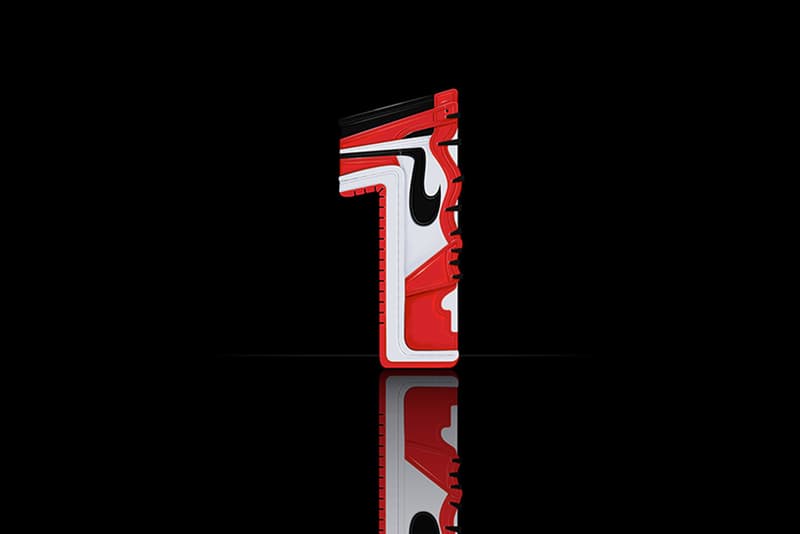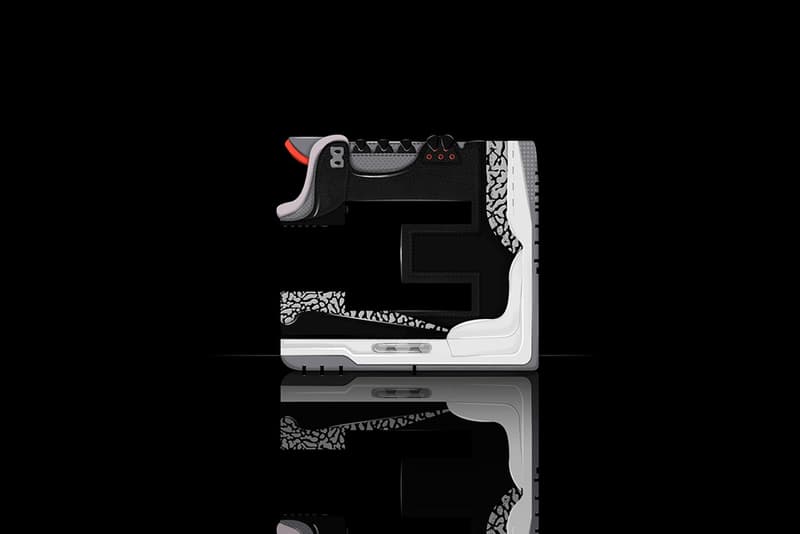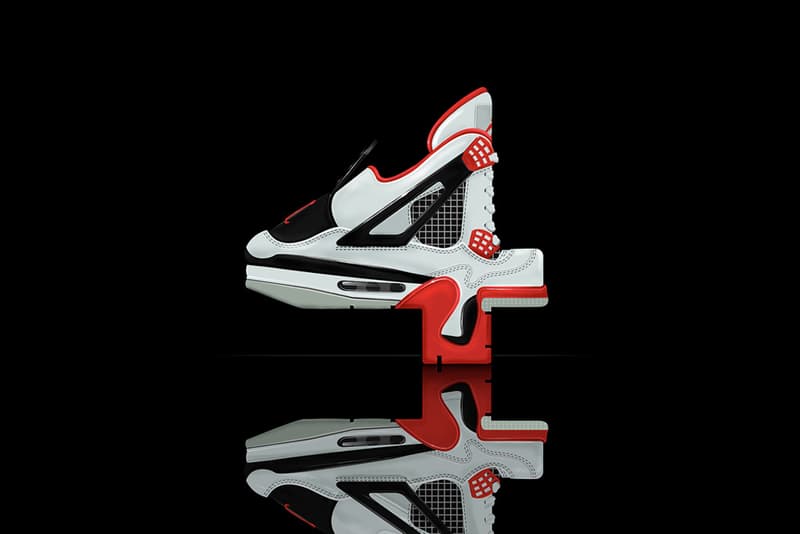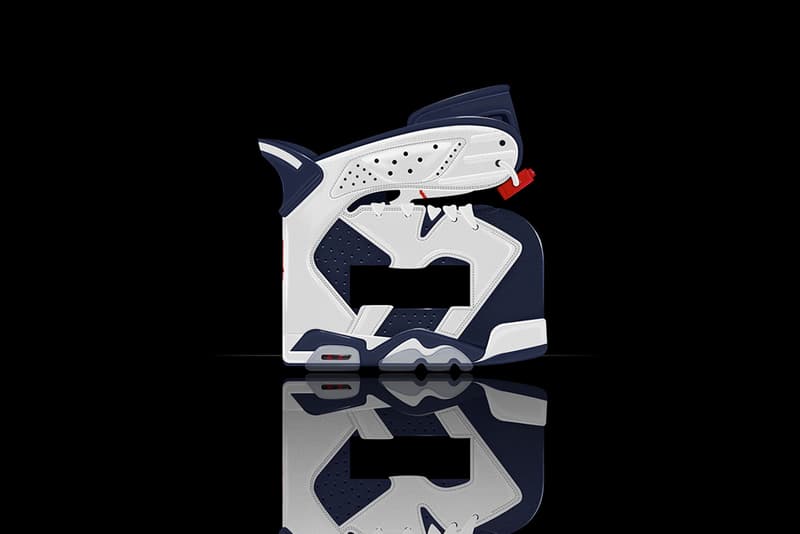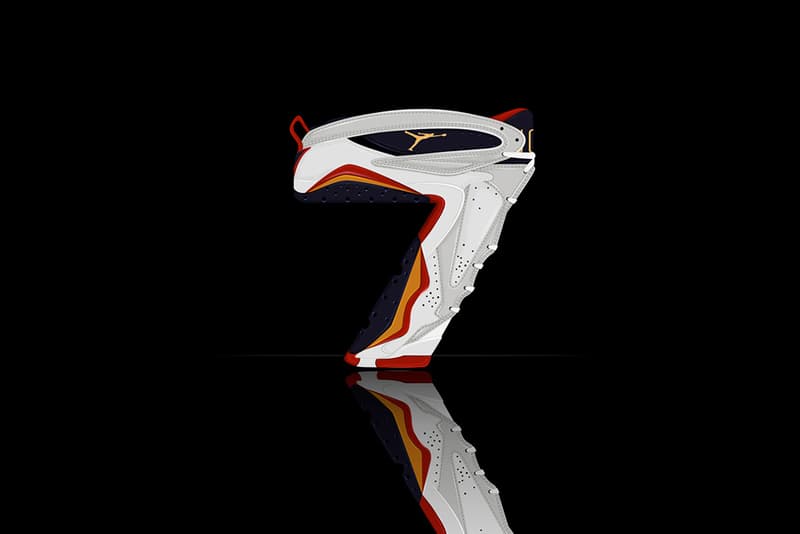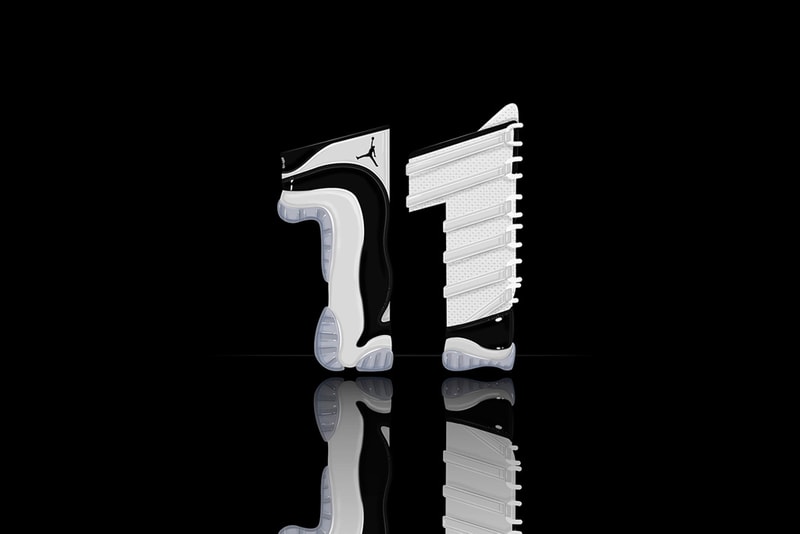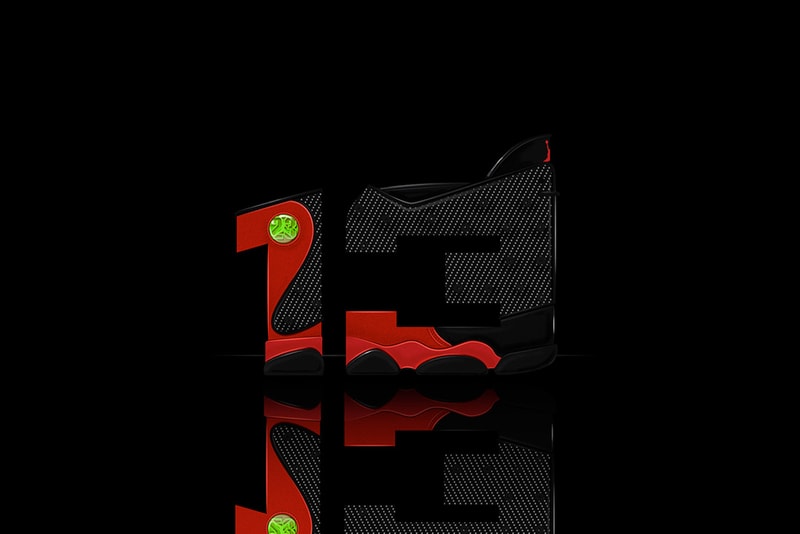
Air Jordan Illustrated Font by 13th Collective & Will C. Smith
A collaborative effort from 13th Collective and Will C. Smith brings you their interpretation and homage to the most coveted sneaker franchise of all time: the Air Jordan. Inspired from the Jordan Retro Card and utilizing each release’s design, the artists have produced illustrated fonts in the model’s respective numbering that will entertain any sneaker head. For more information head over to Behance.